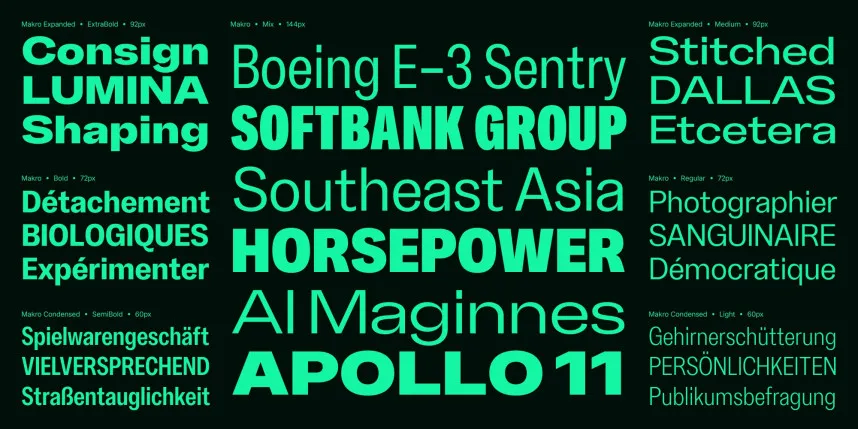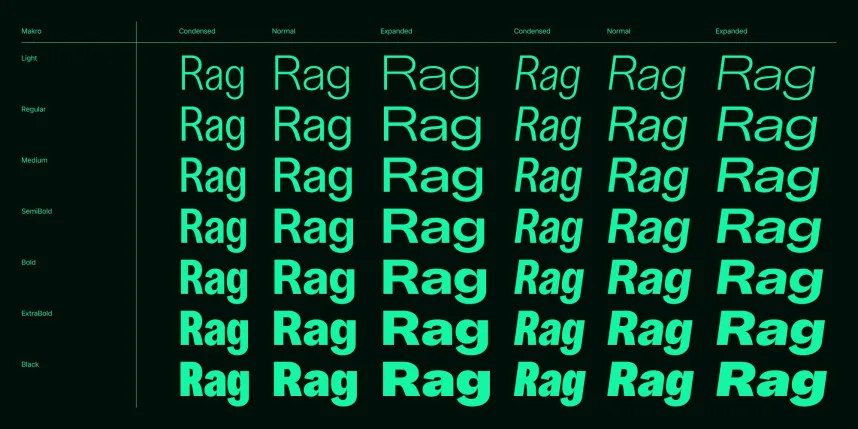
Makro Font delivers maximum typographic impact with ultra bold extended letterforms. This powerhouse display face fills space with confident graphic presence. Its wide proportions create substantial visual weight in any layout.
Multiple style variants include outline, inline, and shadow versions. Layer these variations to create dimensional typographic effects. These options provide extensive creative possibilities from one font family.
Perfect for sports branding and entertainment industry promotions. Makro commands attention in crowded visual environments effectively. The font works exceptionally well on merchandise and promotional materials.
Excellent legibility despite extreme boldness and extended proportions. Careful letter spacing ensures readable text even at maximum weights. This makes Makro functional beyond simple decorative applications.
Makro Font Family
Variable font implementation allows custom weight and width adjustments. Create precisely tuned instances for specific layout requirements. This advanced functionality supports responsive design across platforms.
Choose Makro Font when subtlety is impossible and impact is essential. This display face delivers pure typographic power for attention demanding projects. Dominate visual space with this exceptionally bold design.